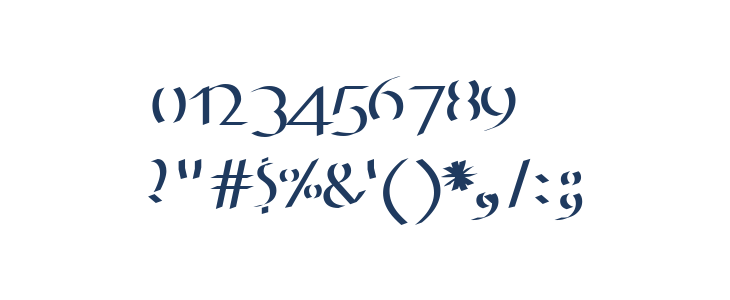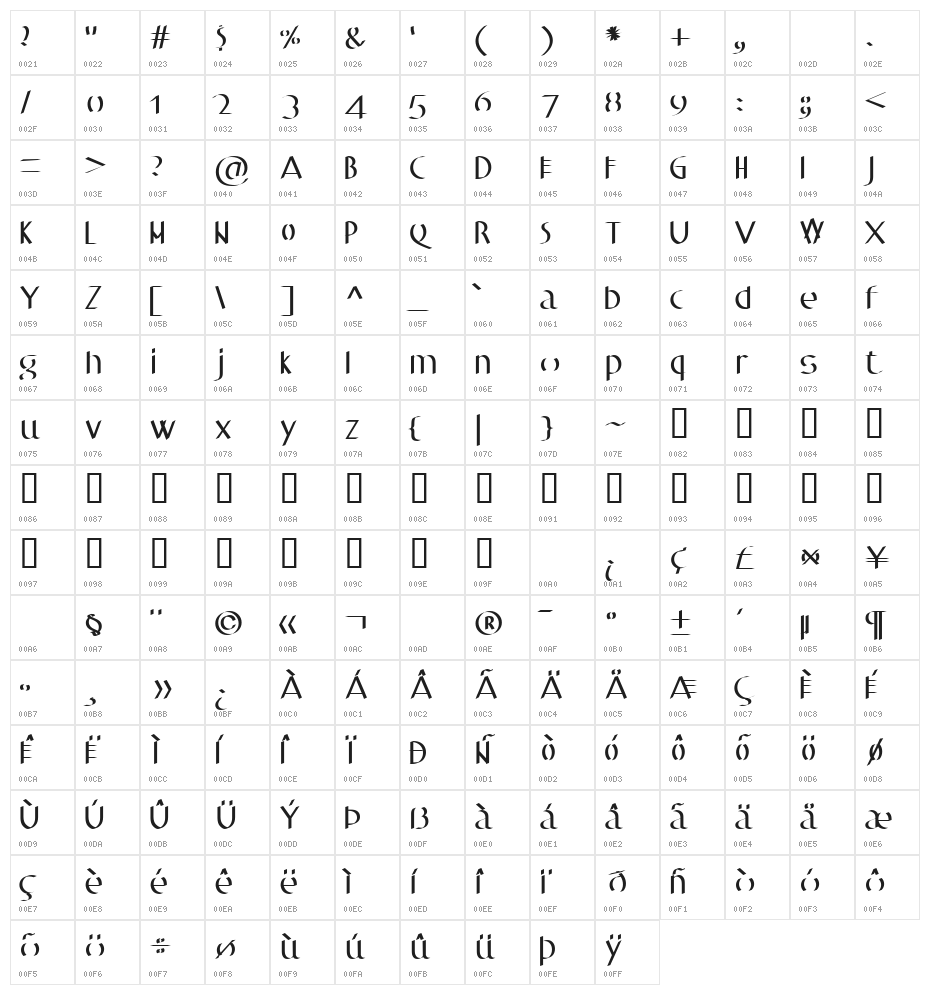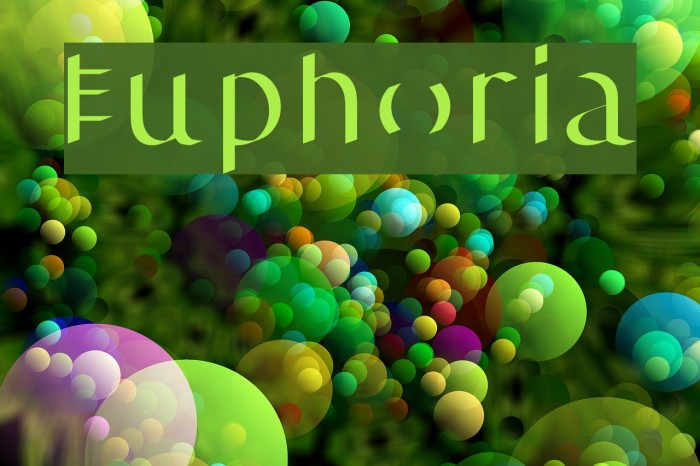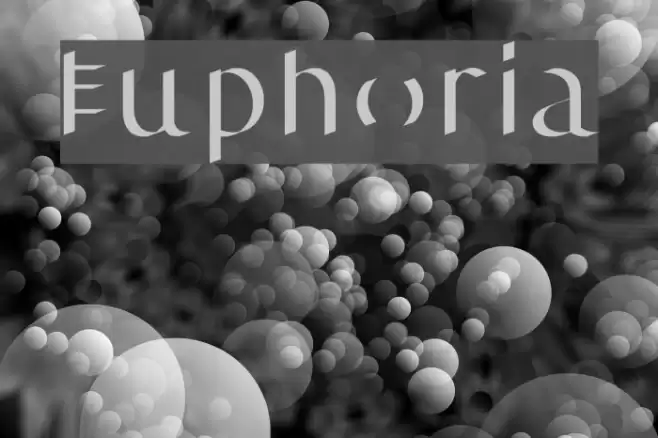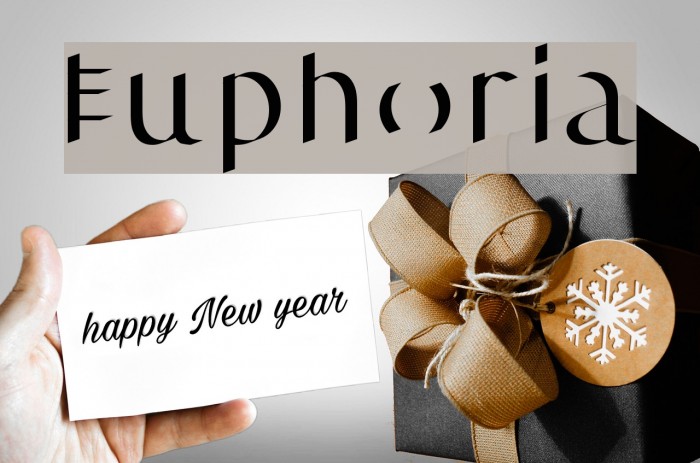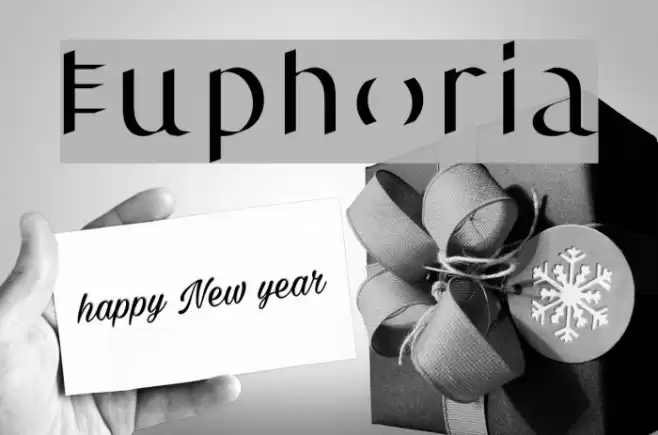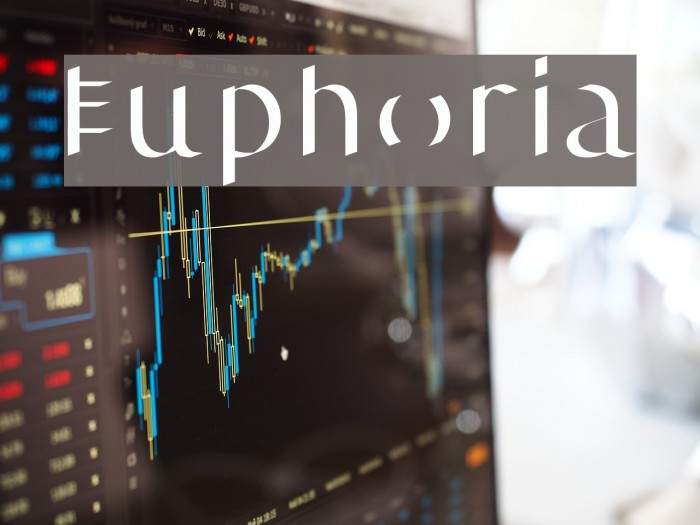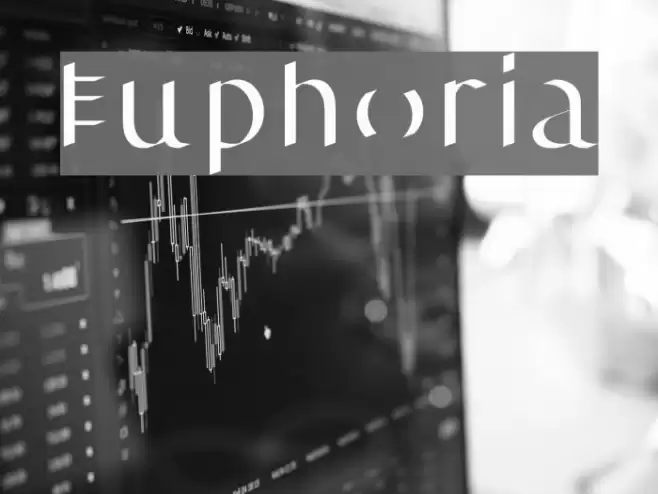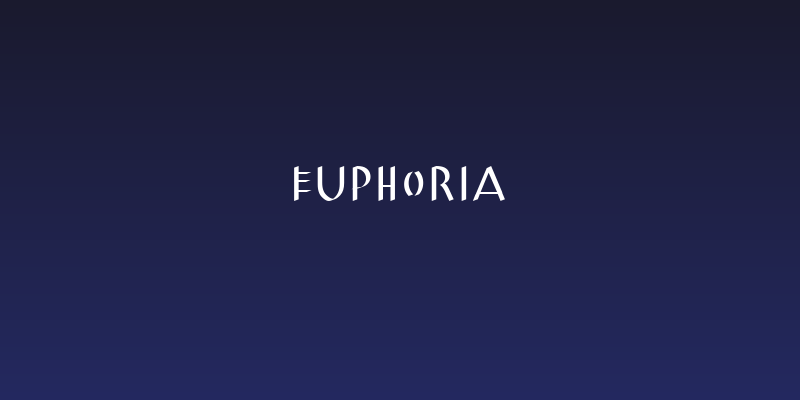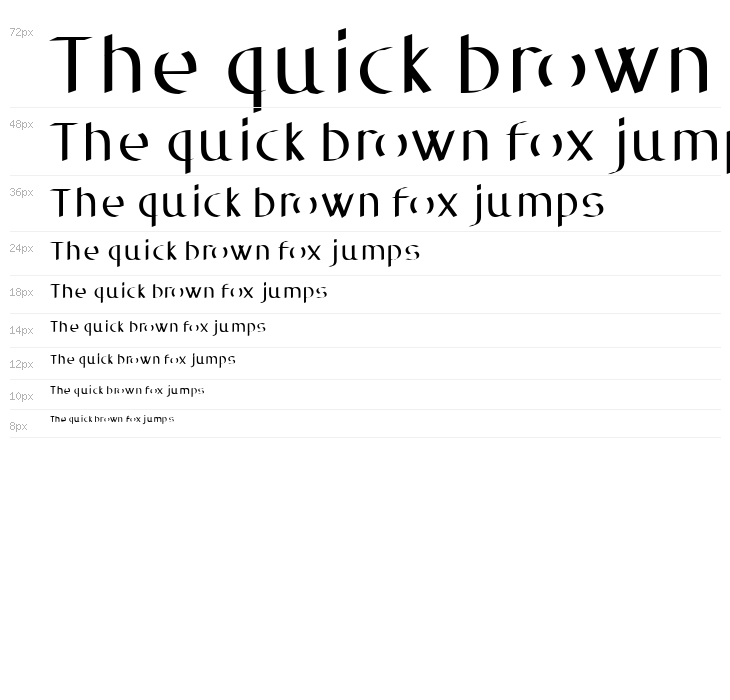
Euphoria Font
Euphoria Description
This font features a unique and artistic design, characterized by its sharp, angular strokes and distinct geometric shapes. The uppercase letters exhibit a bold and striking presence, with some characters incorporating unexpected cuts and angles that add a modern flair. The lowercase letters maintain a consistent style, offering a harmonious blend of curves and edges. Numbers and special characters follow the same design principles, ensuring a cohesive look across all glyphs. This font's high contrast in stroke thickness enhances its readability while maintaining an artistic edge.